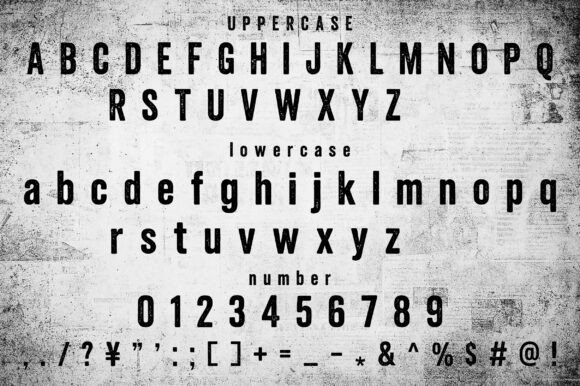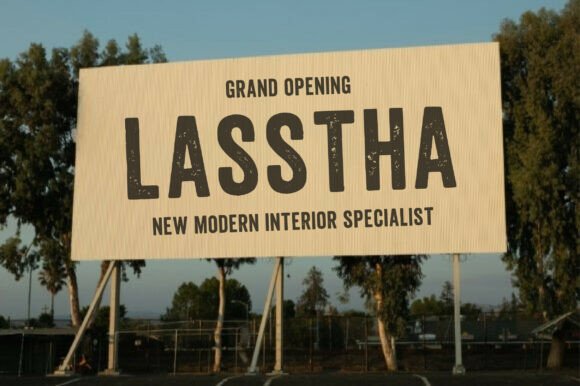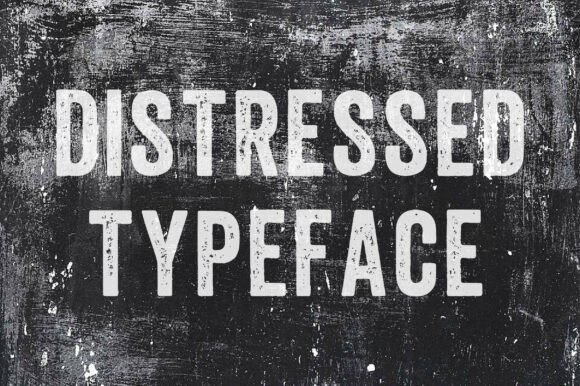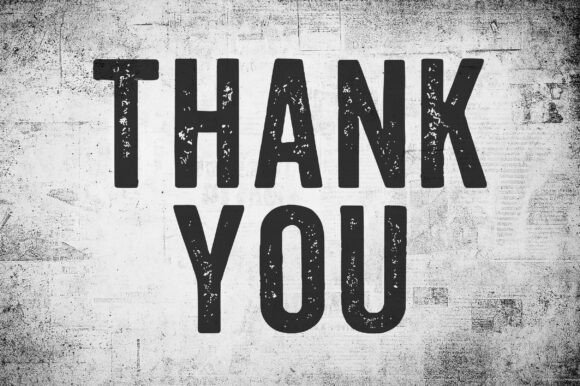
The Power of Bold Rust: Unleashing a Vintage Industrial Look in Your Designs
I still remember the design project that led me to discover Bold Rust. I was working on a branding project for a local coffee shop, and my client specifically asked for a logo that exuded a rugged, industrial vibe. I scoured the internet for the perfect font, but nothing seemed to fit the bill. That was until I stumbled upon Bold Rust. Its distressed finish and bold characters instantly caught my attention, and I knew I had found the perfect fit.
An Honest Review of Bold Rust
- ✨ Unique texture: The distressed finish gives Bold Rust a one-of-a-kind look that’s perfect for adding a touch of grit to your designs.
- ✅ High legibility: Despite its bold and textured nature, Bold Rust remains surprisingly legible, even at smaller font sizes.
- 💪 Versatility: This font is perfect for a wide range of design projects, from T-shirt designs and logos to posters and signage.
While Bold Rust is an amazing font, it’s not without its quirks. Here are a few things to keep in mind:
- 🤔 Limited use in body text: Due to its bold and textured nature, Bold Rust may not be the best choice for body text. It’s better suited for headings and titles.
- ⚠️ Glyph limitations: Some users have reported that the font’s glyph set is limited, which may be a drawback for certain design projects.
A Practical Guide to Using Bold Rust
The Story Behind Bold Rust
Bold Rust was inspired by the rugged, industrial landscapes of the American heartland. Its creator, a freelance designer with a passion for vintage typography, wanted to capture the essence of a bygone era in a font that would be both bold and beautiful.
Q: What type of designs is Bold Rust best suited for?
Bold Rust is perfect for designs that require a rugged, industrial look. It’s great for T-shirt designs, logos, posters, signage, and branding projects.
Q: Is Bold Rust available in different weights or styles?
Currently, Bold Rust is available in a single weight. However, its distressed finish and bold characters make it a versatile font that can be used in a variety of design contexts.